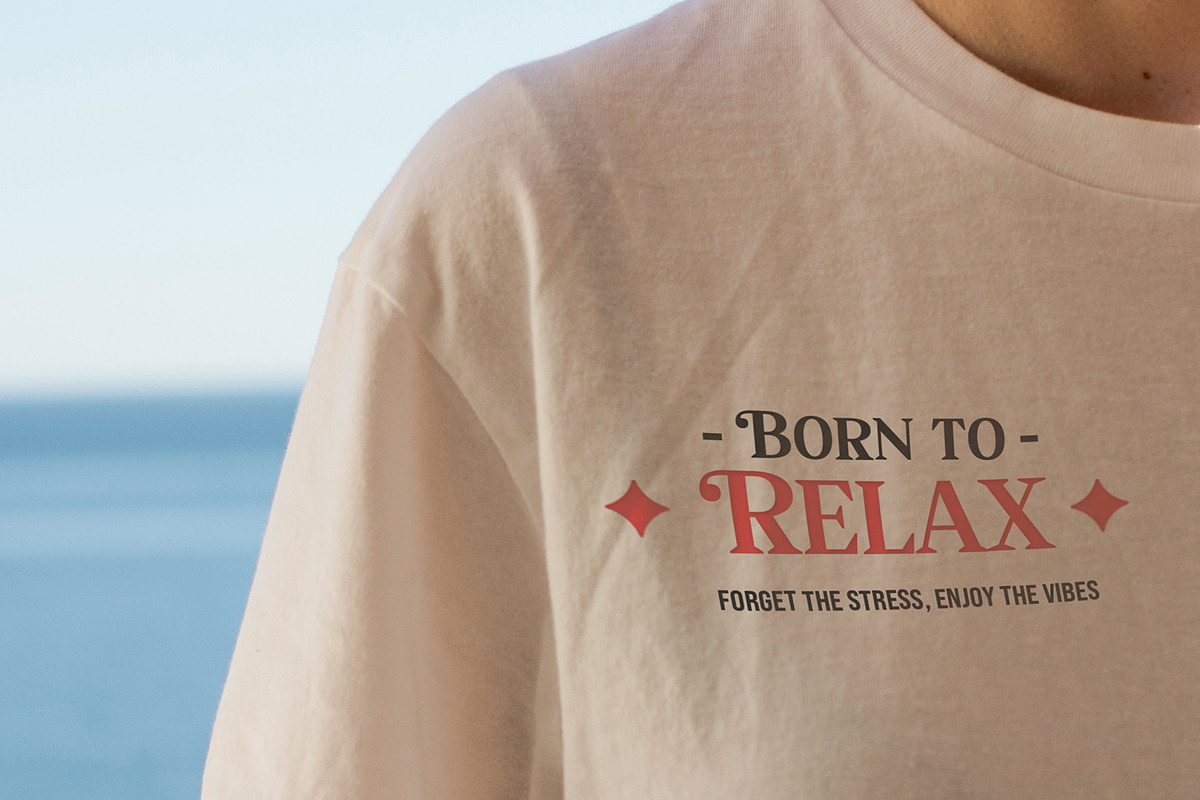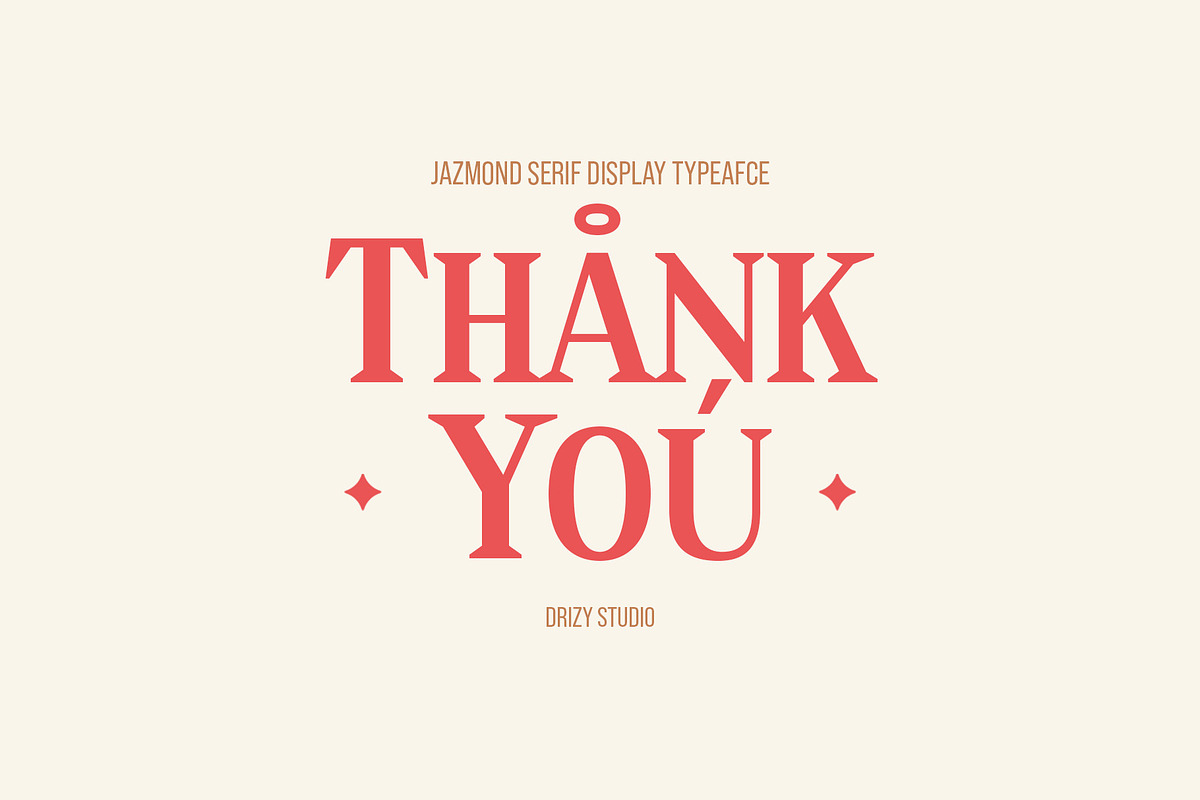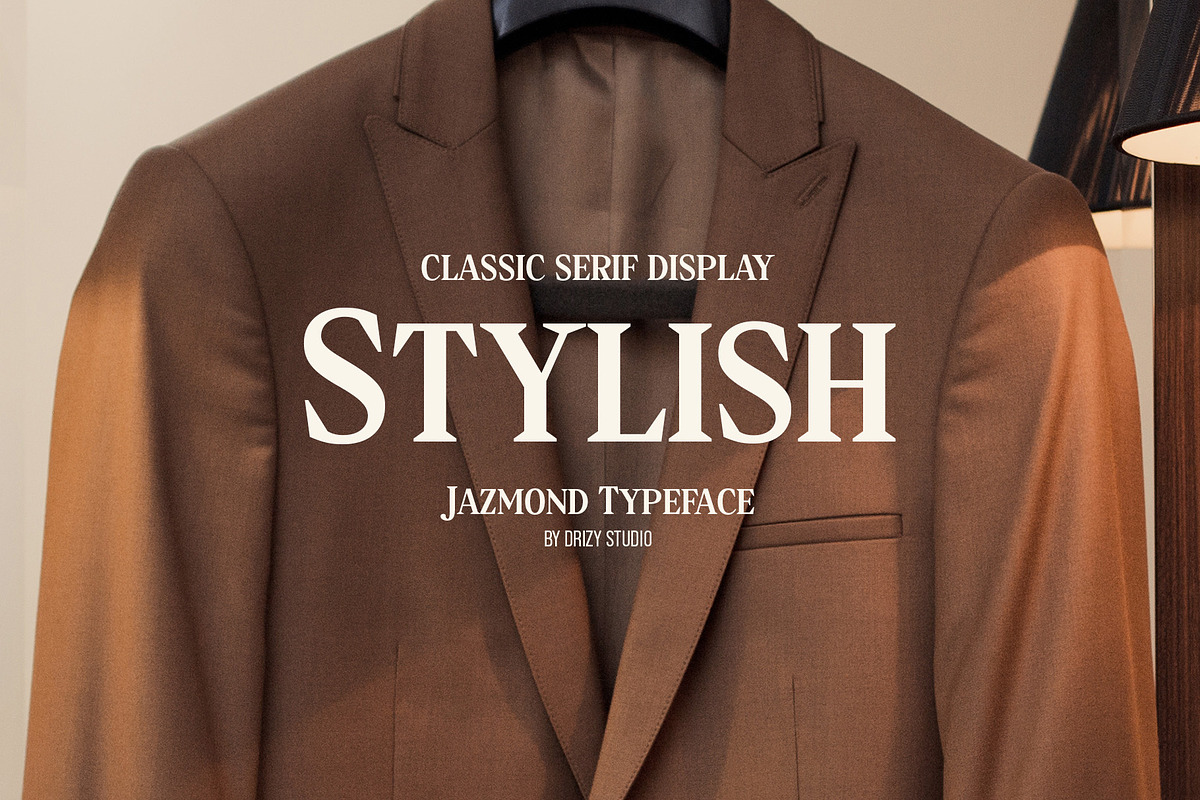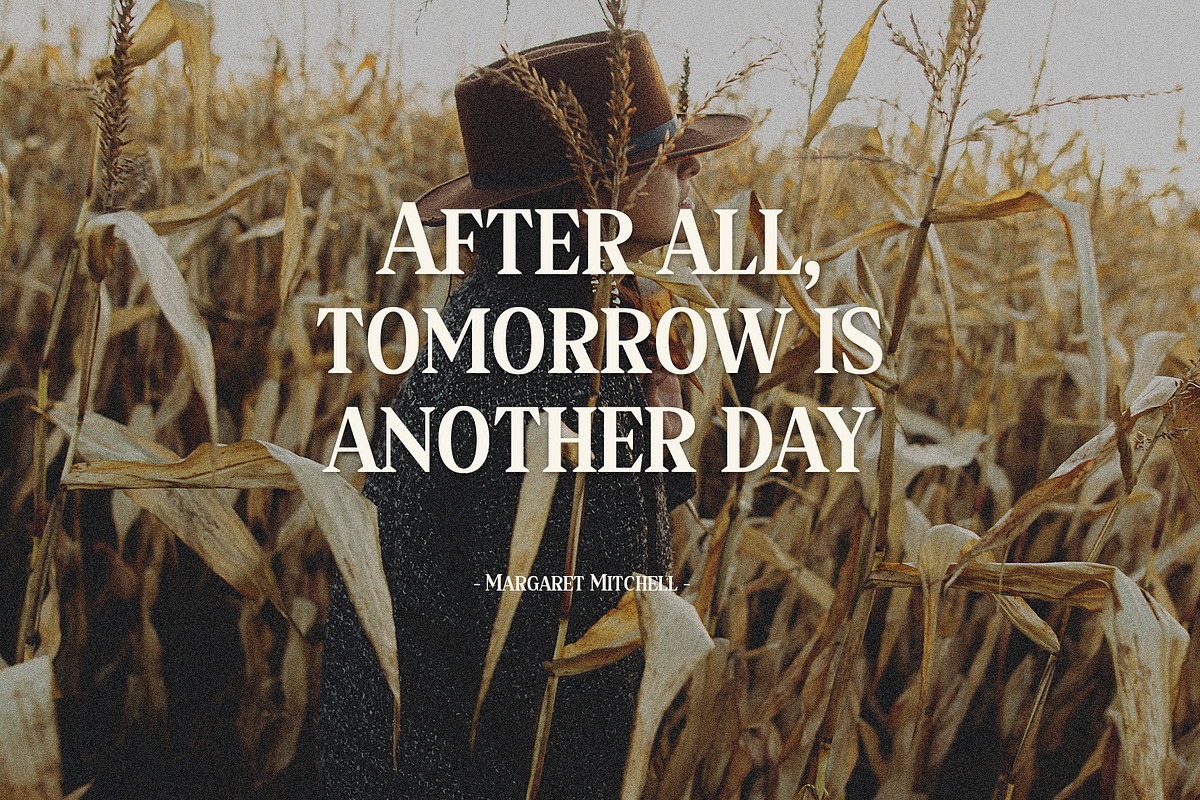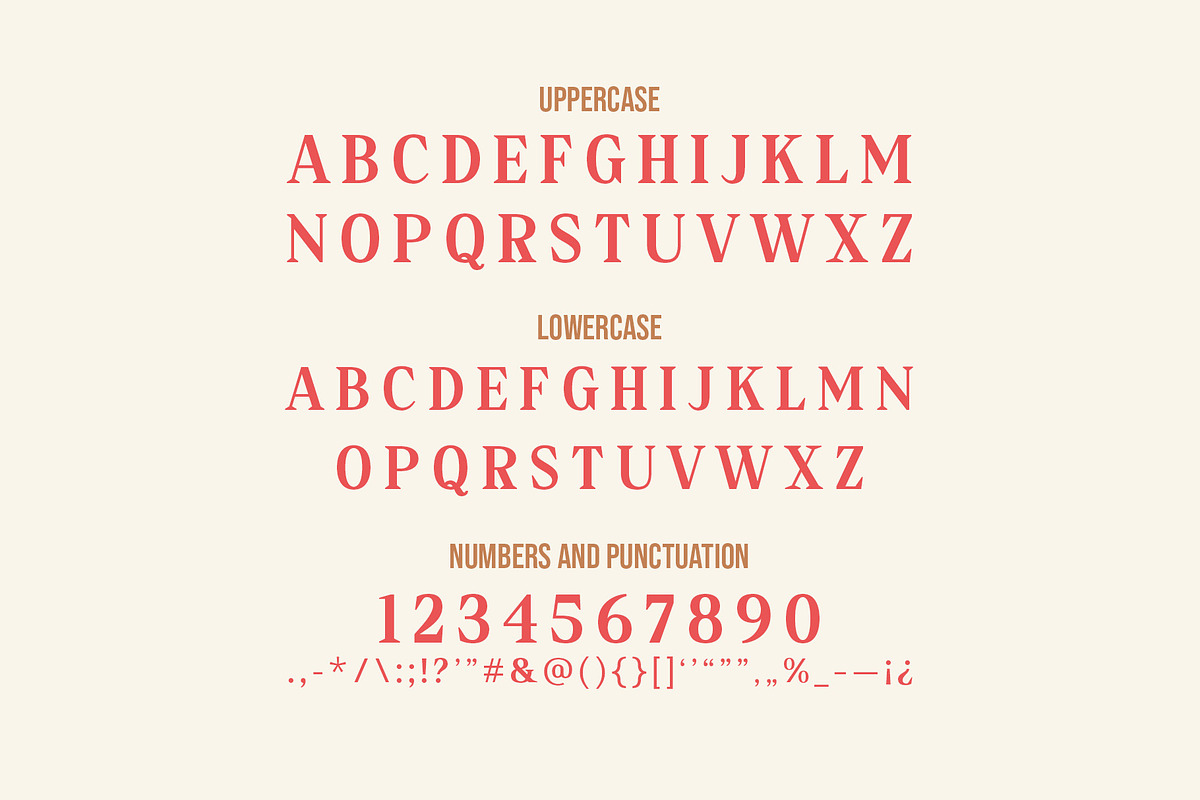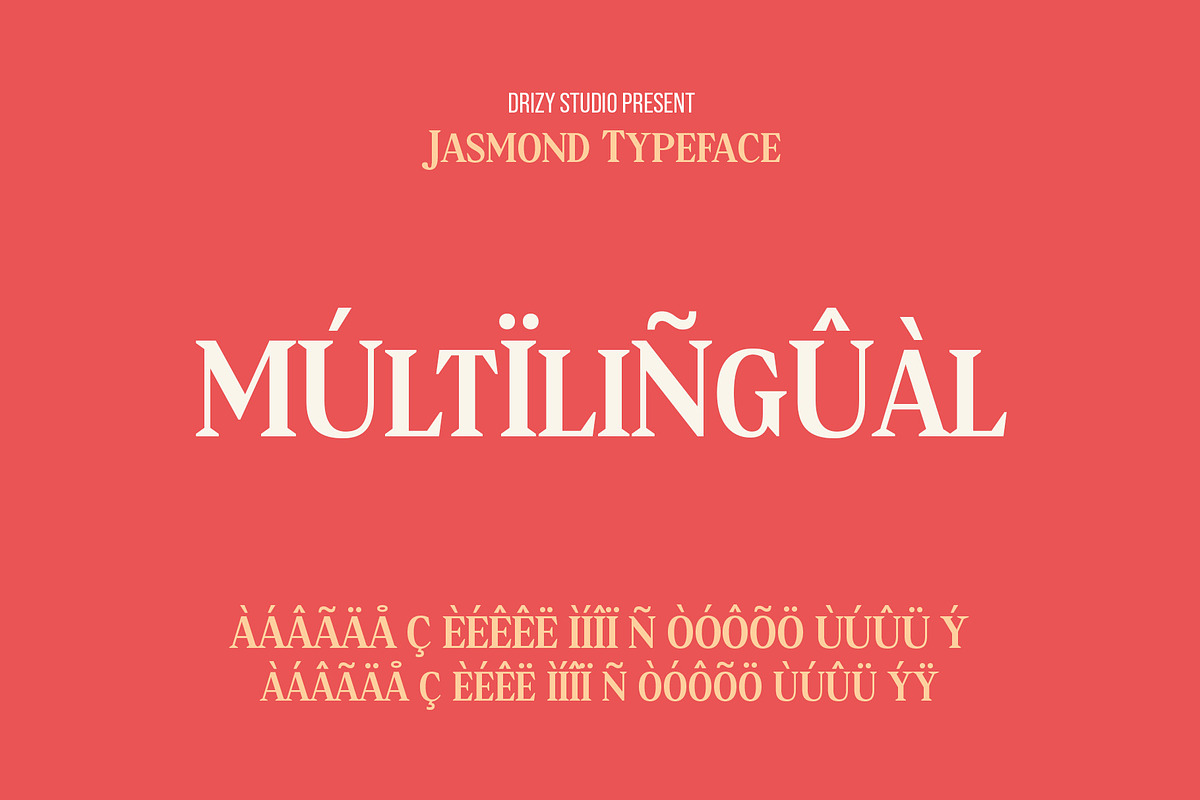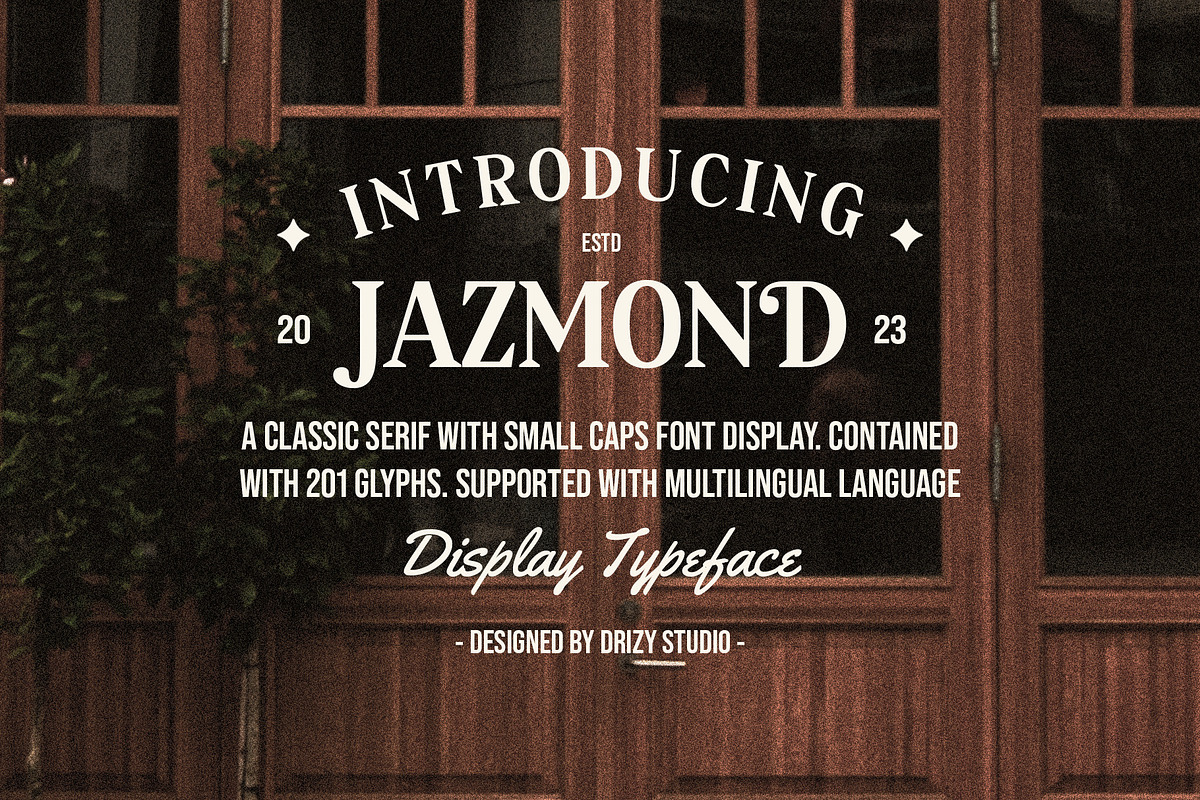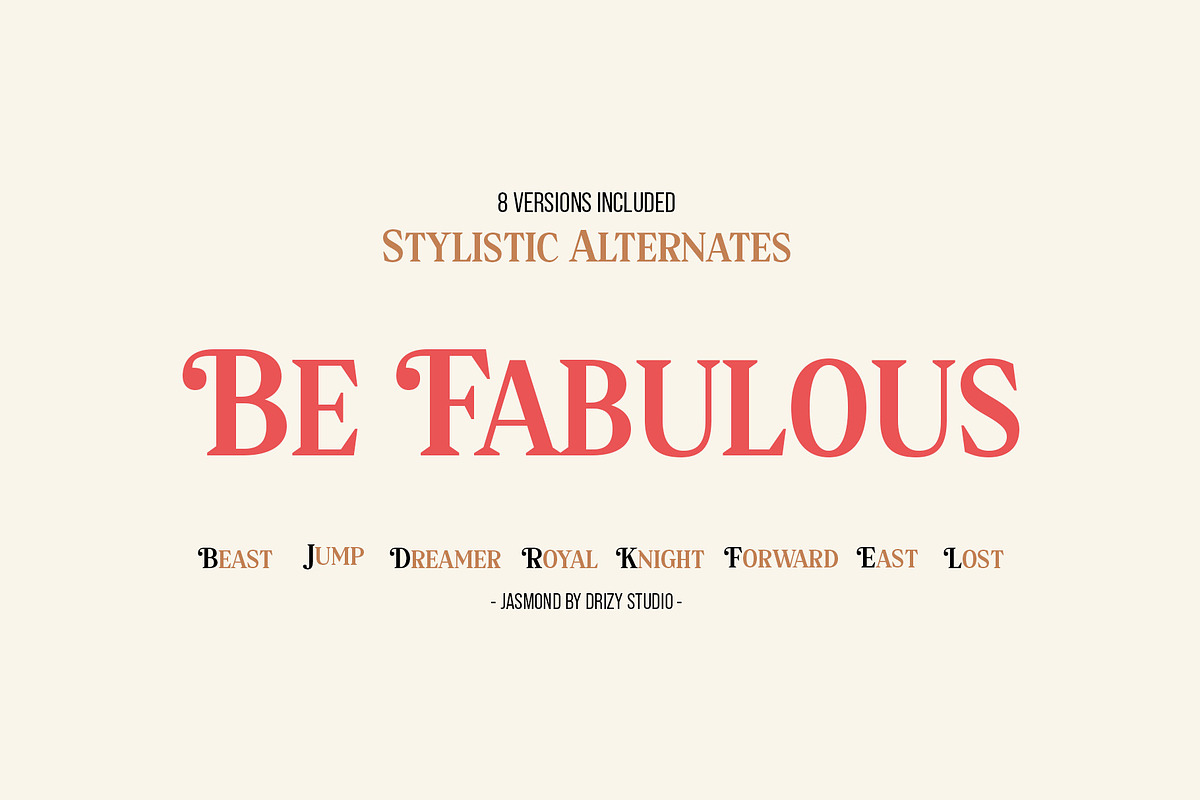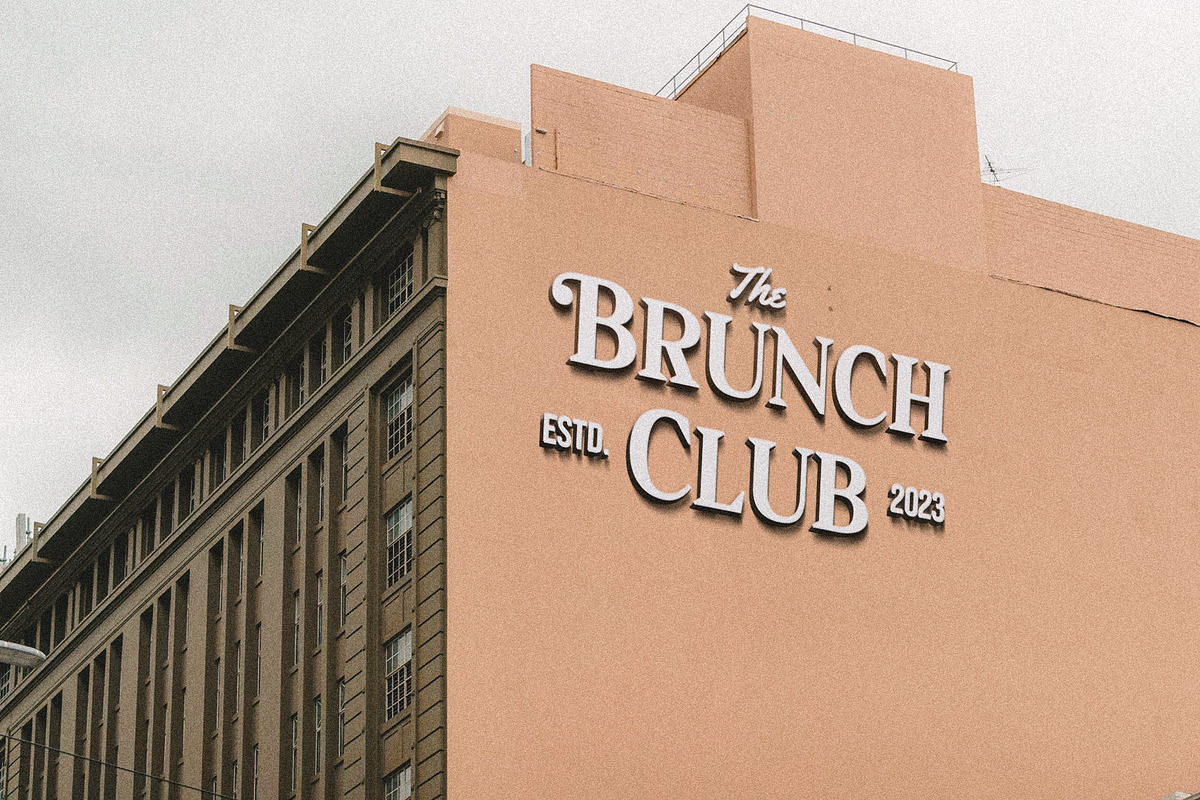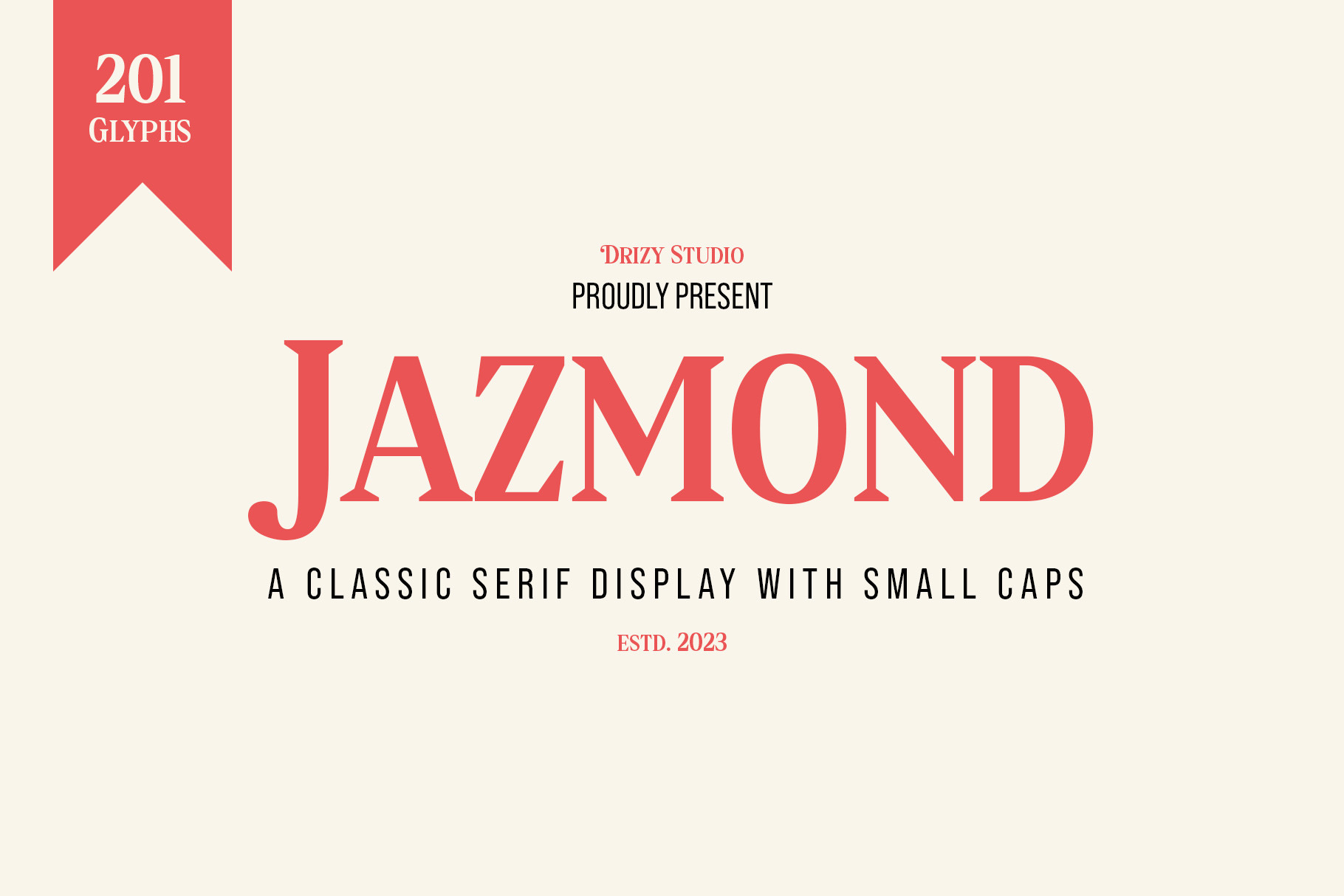
Jazmond – Classic Serif Font
Jazmond is a Classic Serif fonts with small caps offer a unique and refined typographic style that combines the elegance of traditional serif typefaces with the visual appeal of small capitals.
Jazmond features: Uppercase & Lowercase Punctuation & Numbers Multilingual Support Alternates Do not hesitate to contact us if you have any questions about this font. Hope you like it and enjoy it!